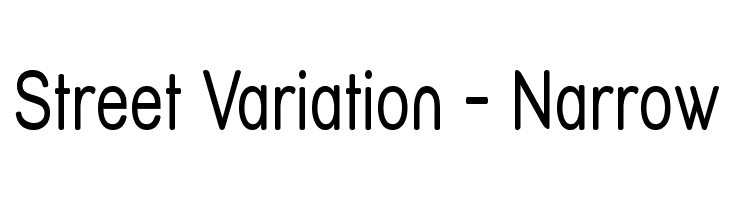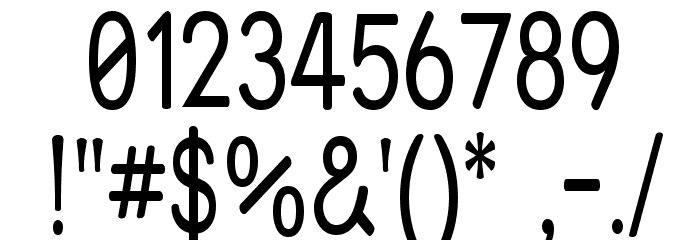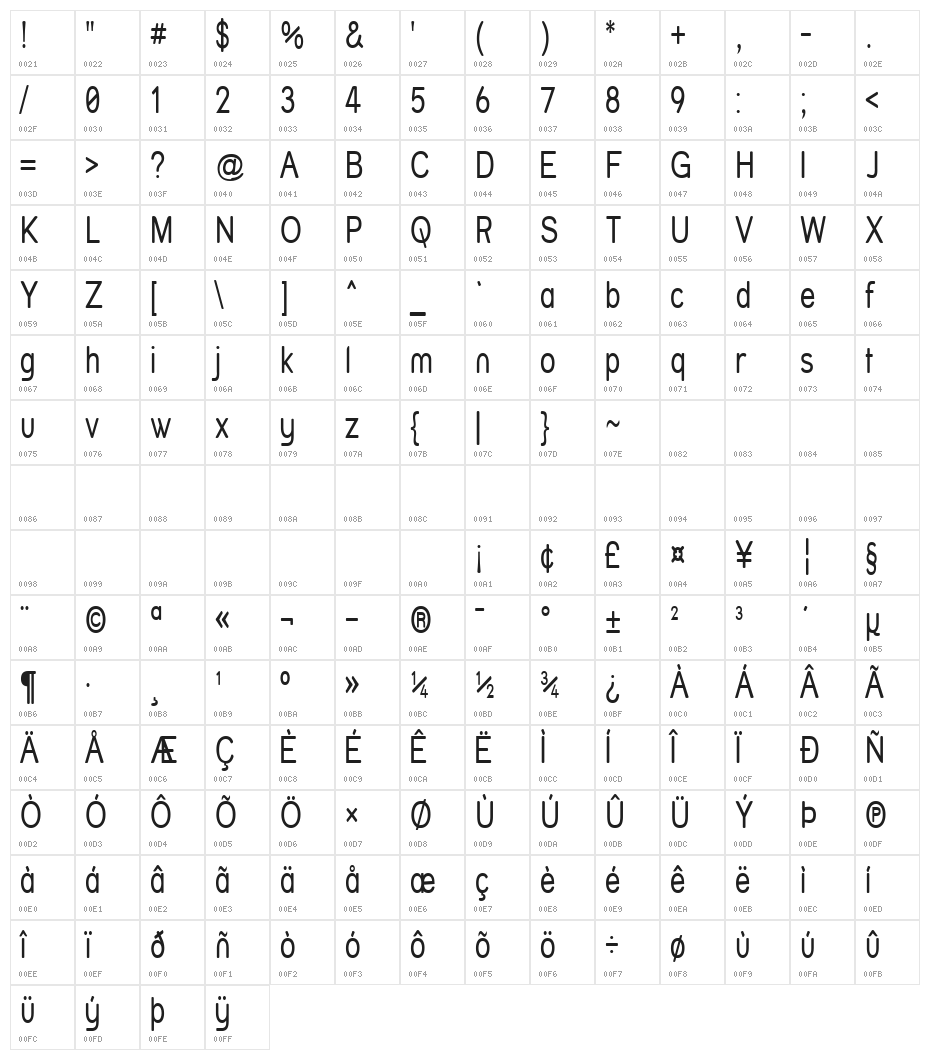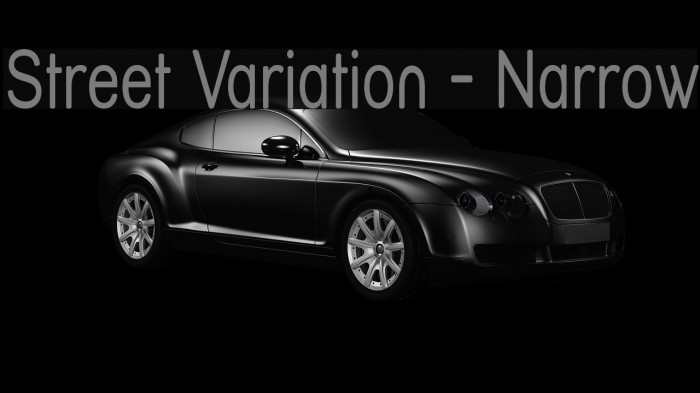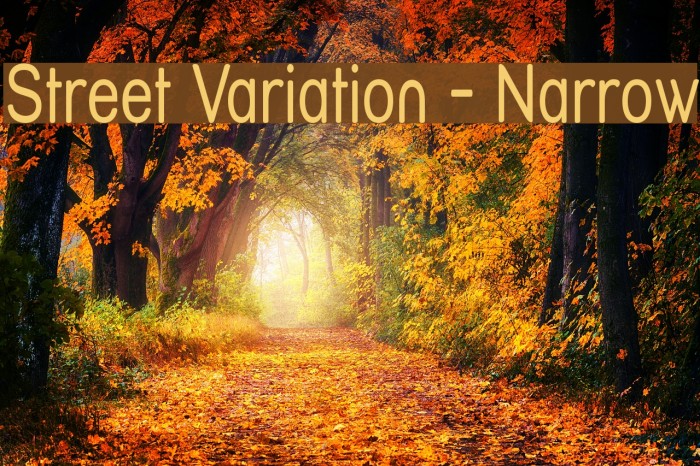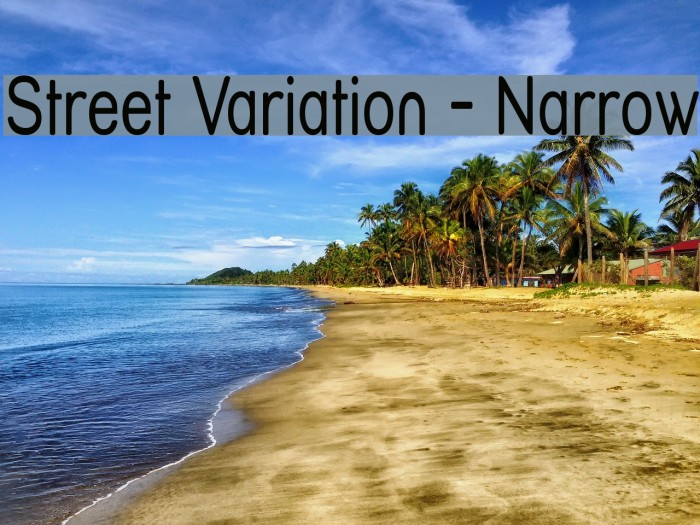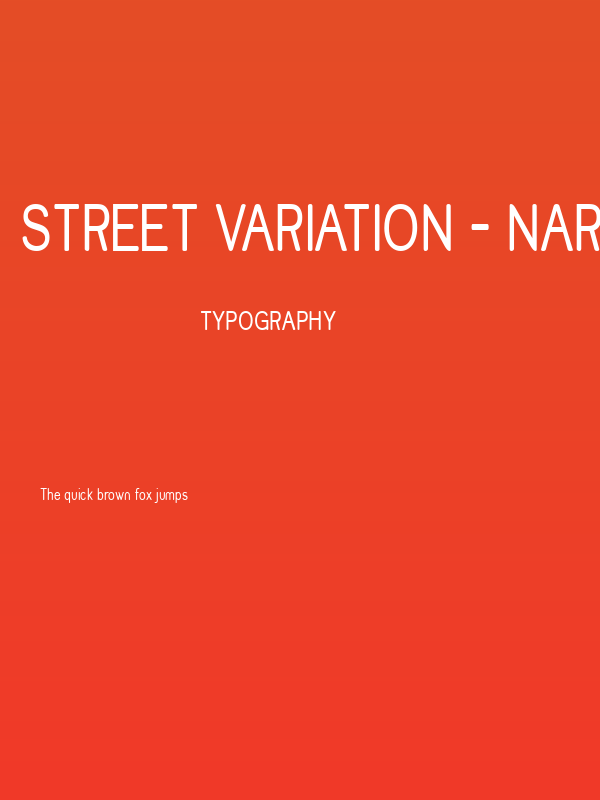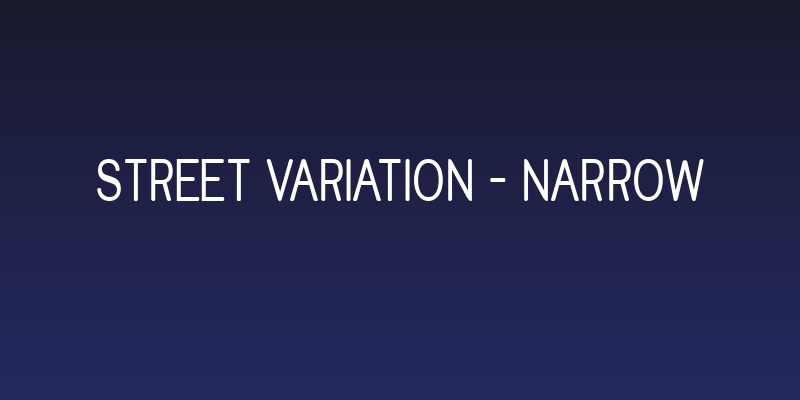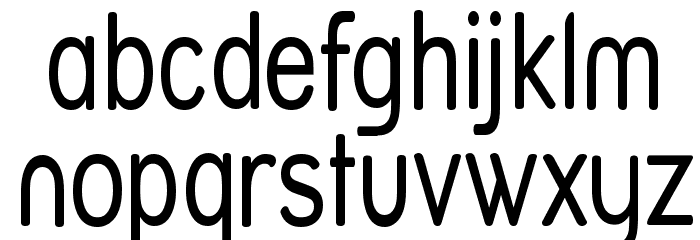
Street Variation - Narrow Font
Street Variation - Narrow Description
This font features a clean and modern sans-serif style with narrow letterforms, making it ideal for compact spaces. The characters are evenly weighted, providing a uniform appearance across both uppercase and lowercase letters. The numerals are clear and distinct, ensuring readability. Special characters are well-defined, maintaining the font's overall sleek aesthetic. The narrow width of the letters allows for efficient use of space without sacrificing legibility, making it suitable for various design applications.
| Proposed Projects | Ideal for signage, branding, and digital interfaces where space is limited but clarity is essential. |